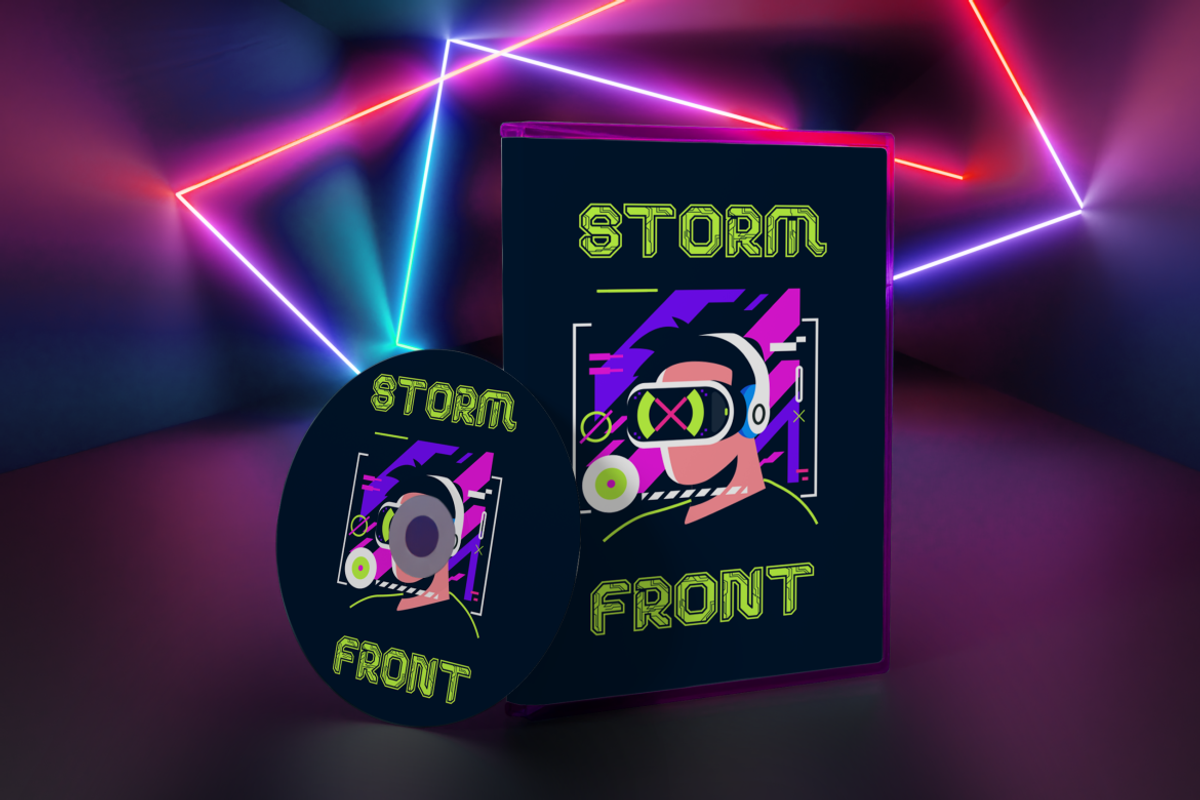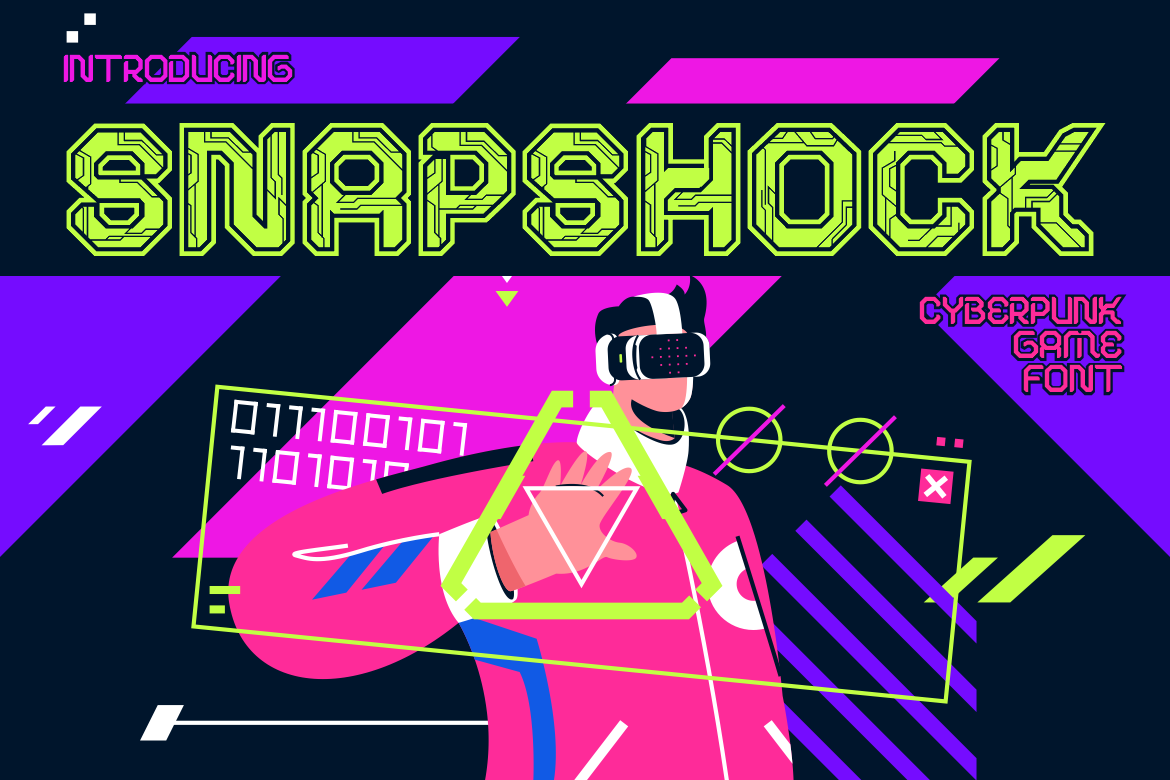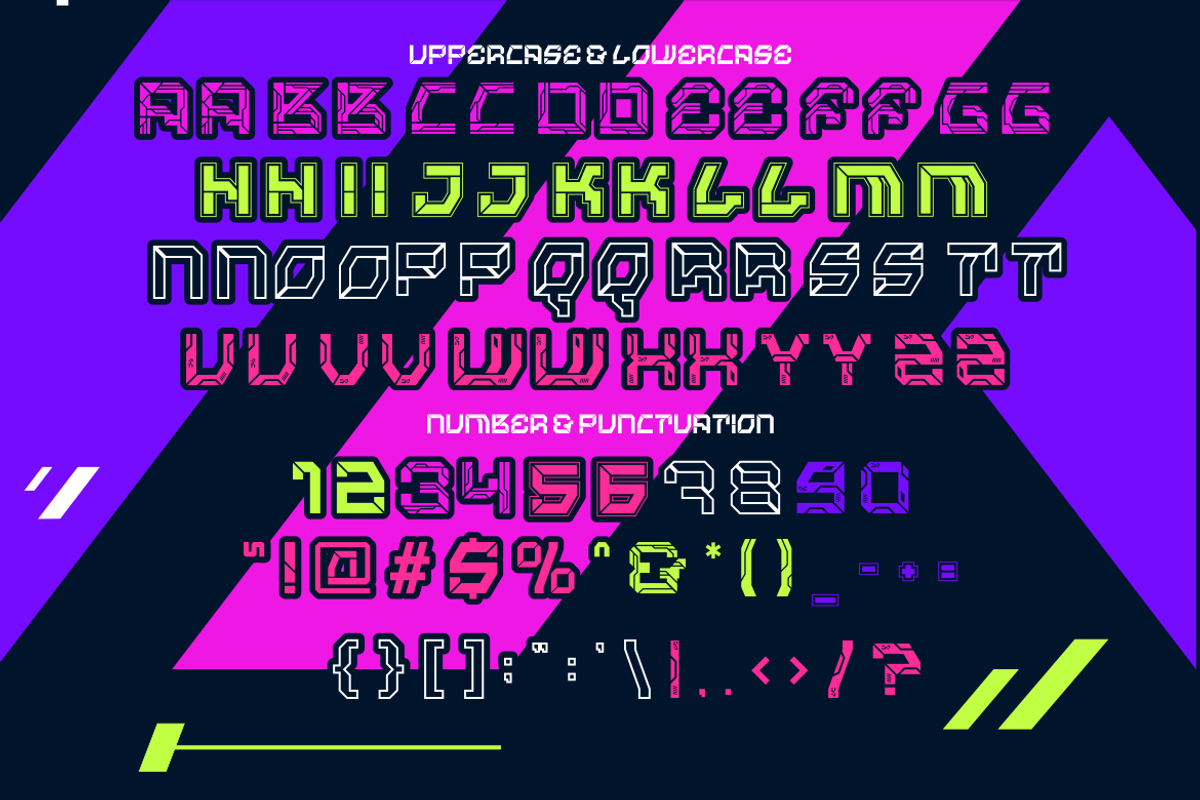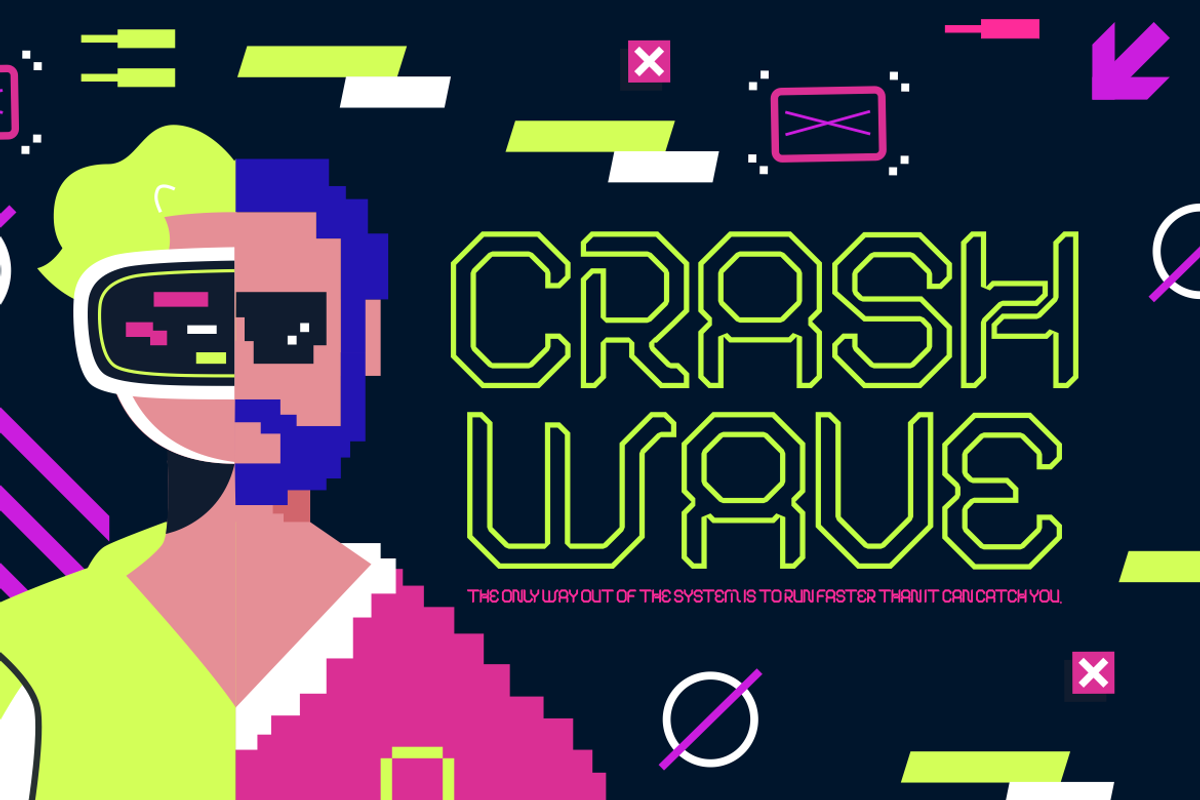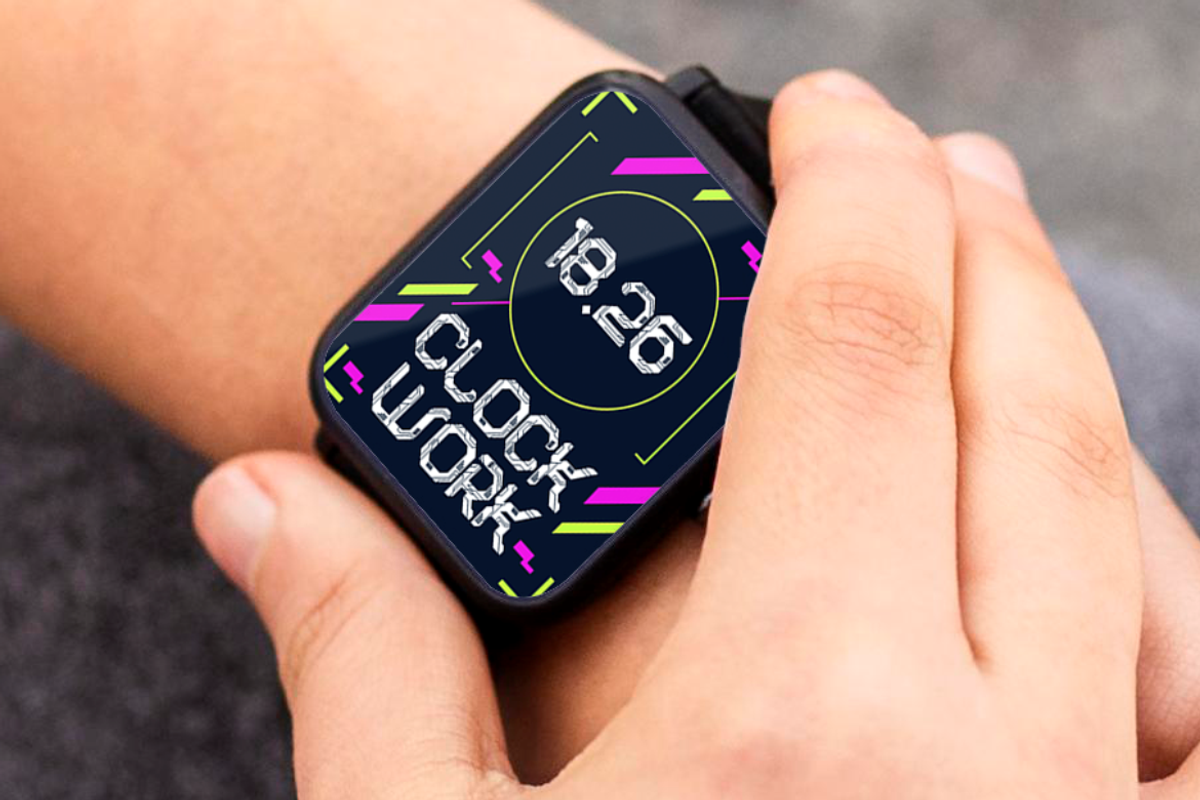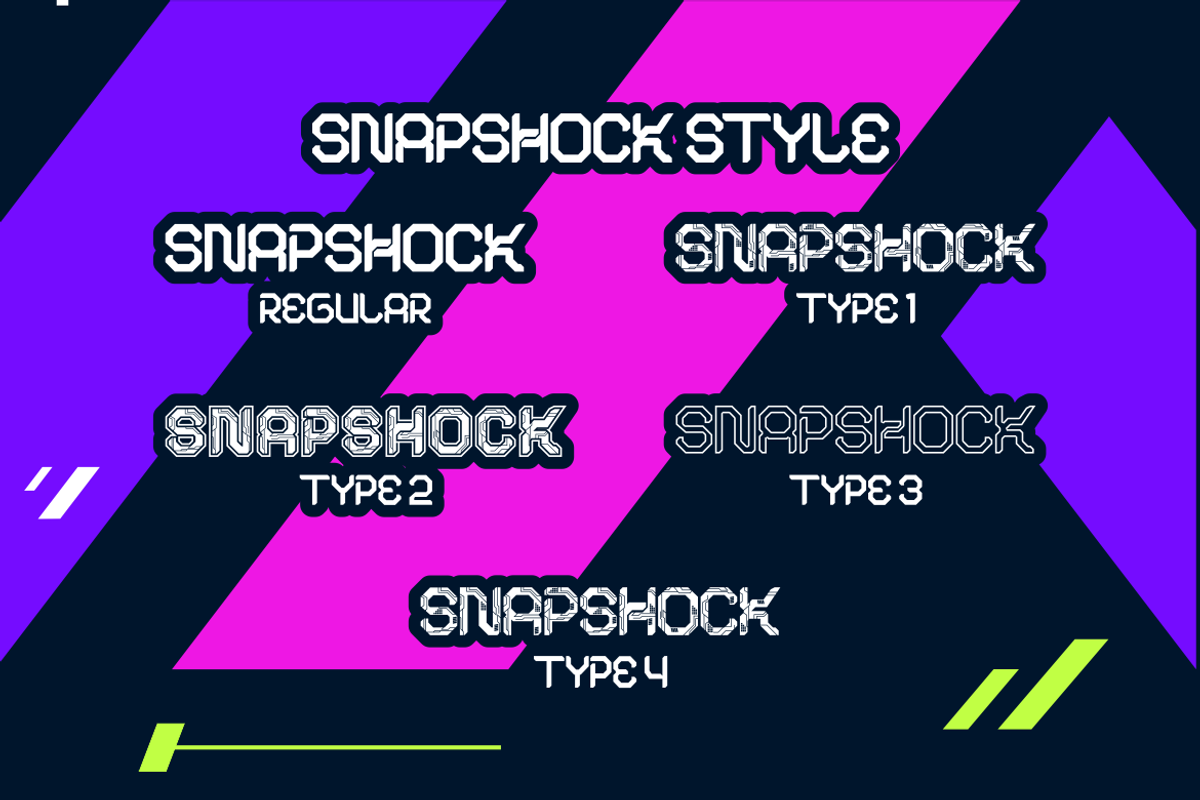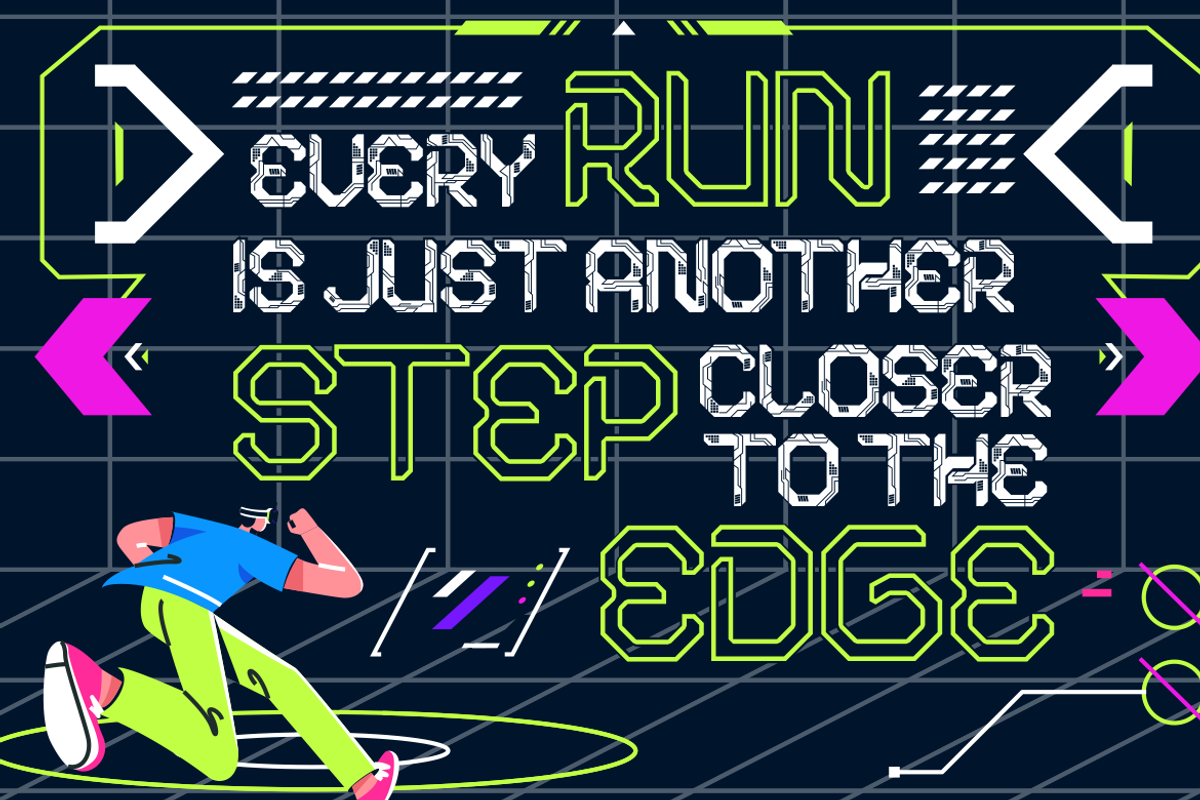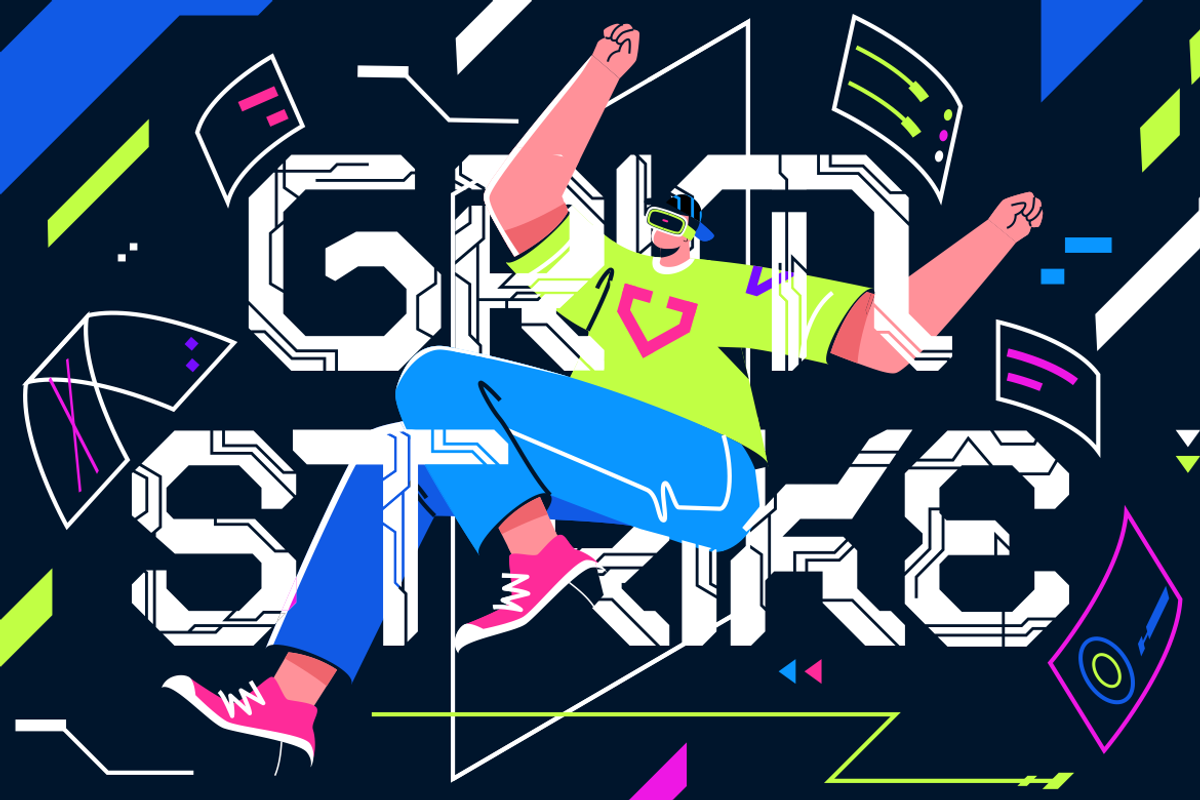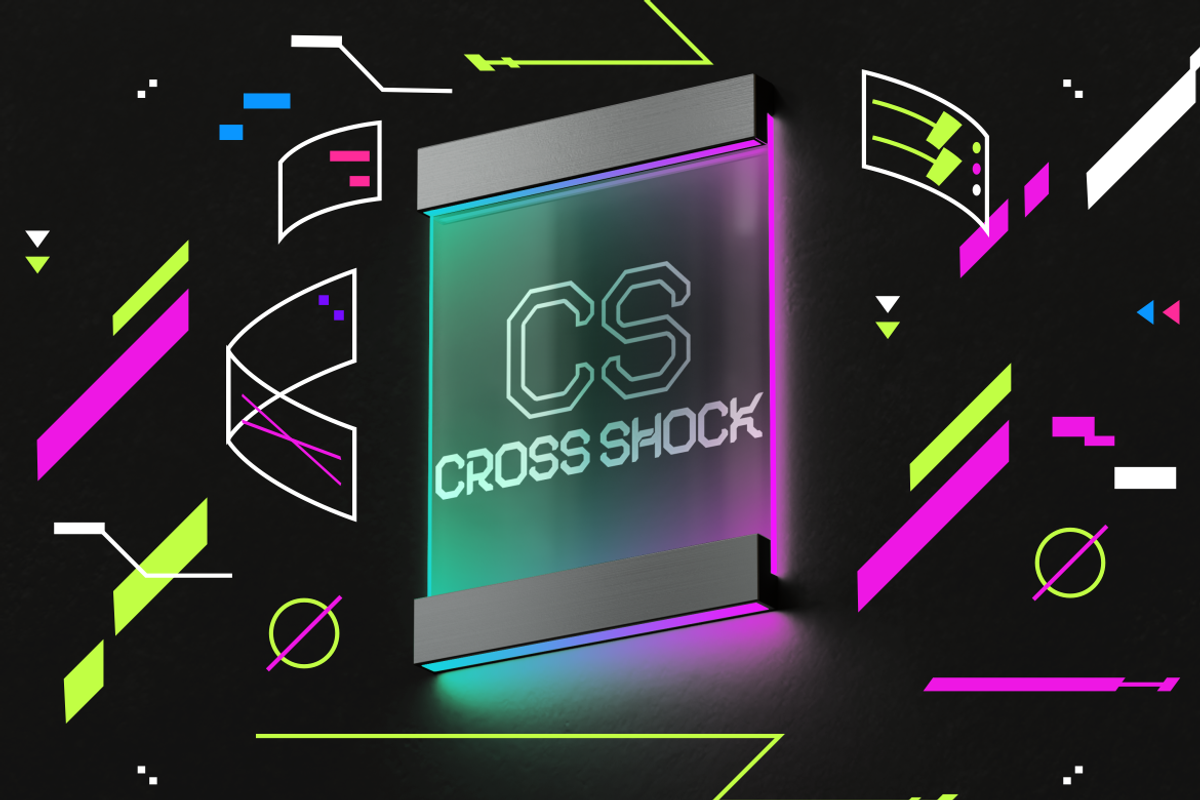
Snapshock - Cyberpunk Game Font
Introducing Snapshock, a bold cyberpunk game font that merges futuristic aesthetics with neon-bright energy, perfect for projects with a sci-fi or tech theme. Snapshock’s unique letterforms feature circuit-like patterns and angular details, creating an electrifying visual effect that’s ideal for cyberpunk visuals and high-tech designs. The font is set against a vibrant background of neon pink, purple, and lime green, encapsulating the digital, neon-drenched atmosphere that defines the cyberpunk genre. This striking color palette and tech-inspired style make Snapshock perfect for any project that demands a cutting-edge, futuristic look. Whether you're working on game interfaces, VR projects, or promotional materials for tech events, Snapshock will bring your designs to life with an unmistakable modern edge.
Designed for versatility, Snapshock fits effortlessly into various applications, from posters, branding, and packaging to logos, stickers, and magazine covers. Its bold and eye-catching design ensures readability while adding a touch of sci-fi excitement to each character. With its retro-futuristic aesthetic, Snapshock is ideal for enhancing the atmosphere of tech events, cyber gaming interfaces, sci-fi book covers, and more. Step into the future of design with Snapshock, where technology and creativity intersect in every letter.